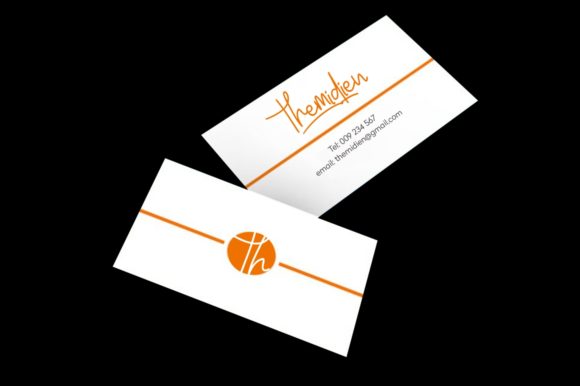
Georghia Font
About Georghia Font
Georghia feels luxurious and elegant, but also authentic. This versatile handwritten font has a wide range of applications ranging from branding to greeting cards and is guaranteed to add a sophisticated touch to your next design.